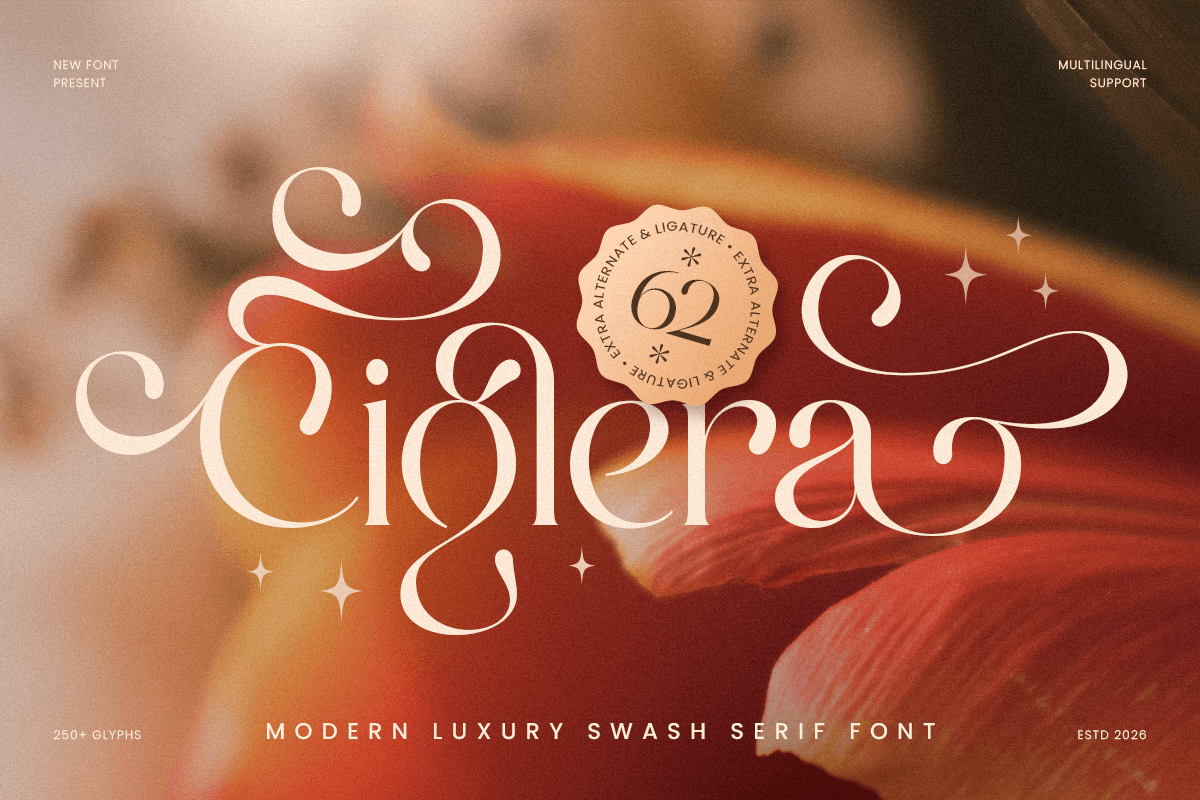
Ciglera
-Modern Branding Swash Font
Ciglera - Modern Branding Swash Font
Ciglera is a modern luxury swash font designed to bring refined elegance and expressive charm to your typography. With graceful swash details, polished letterforms, and a sophisticated rhythm, this typeface creates a premium visual tone that feels stylish, feminine, and instantly brand-ready.
Built for high-end branding and decorative headline use, Ciglera works beautifully across logos, wordmarks, editorial titles, website headers, packaging, labels, invitations, signage, presentations, and upscale marketing visuals. Its swash elements add a signature-like flourish that gives every layout a more luxurious and memorable personality across both print and digital design.
Whether you’re building a fashion identity, elevating a beauty brand, designing romantic packaging, or crafting elegant promotional materials, Ciglera provides a refined swash foundation that makes your typography feel premium, graceful, and unforgettable.
Inspiration Behind Ciglera
Ciglera is inspired by luxury branding and expressive swash typography—where elegant curves, decorative movement, and modern refinement create a distinctive premium signature. The design focuses on graceful rhythm and polished styling to support upscale identities with a soft, stylish, and high-end presence.
Ciglera Font Features:
• Modern luxury letterforms with elegant swash details
• Perfect for premium branding, logos, and decorative headlines
• Signature-style flourishes for stylish visual identity
• Luxury logos, wordmarks, and premium brand identity systems
• Fashion, beauty, skincare, fragrance, and boutique branding
• Editorial layouts, website headers, and elegant headline typography
• Packaging, labels, invitations, and romantic promotional design
• Social media campaigns, presentations, and upscale marketing assets
Elevate your branding with Ciglera—a modern luxury swash font made for elegant, premium visual impact. ✨